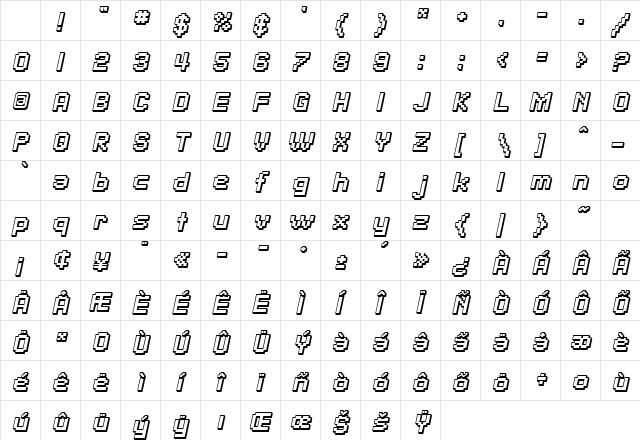
Complete SF Pixelate Shaded Bold Oblique glyph index. Displaying only characters natively supported by SF Pixelate Shaded Bold Oblique font.
SF Pixelate Shaded is rooted in pixel-grid construction, making it a natural fit for game UI, retro computing aesthetics, and digital nostalgia projects. The slanted form adds forward momentum and visual energy.